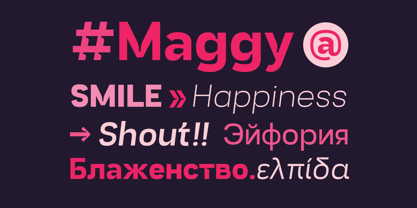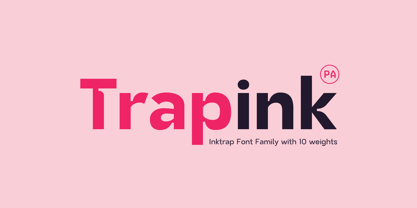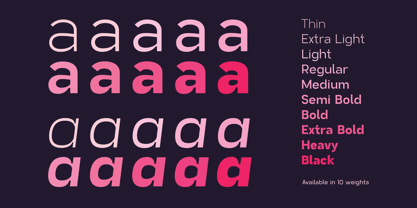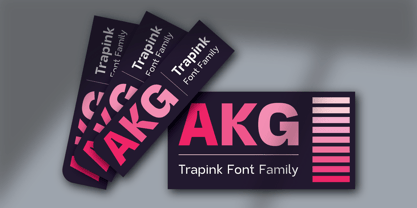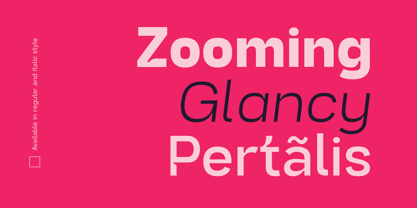
Trapink
by Patria Ari
The Trapink Font Family was designed by Patria Ari Wijonarko and published by Patria Ari. Trapink contains 20 styles and family package options. More about this family
Inktrap combined with stylized sans font ready to upgrade your needs in design.
Designers: Patria Ari Wijonarko
Current Foundry: Patria Ari